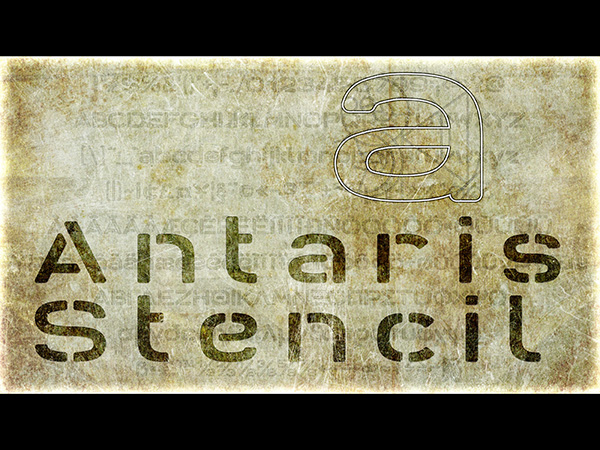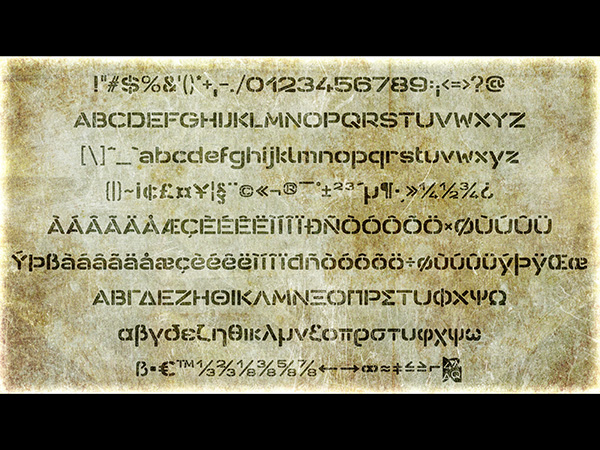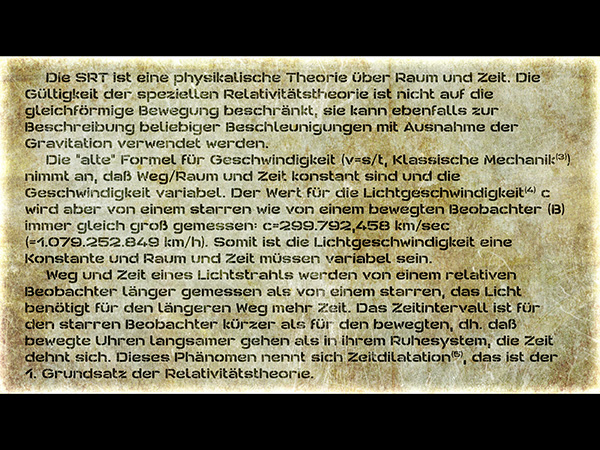
Unveiling the Antaris Stencil Font: A Strong yet Mysterious Typeface
In the realm of typography, few fonts manage to convey a sense of strength and mystery as effectively as the Antaris Stencil font. This distinctive typeface is an offshoot of the robust Antaris font, but with a unique twist that lends it an air of secrecy and ancient wisdom. The Antaris Stencil font is reminiscent of markings found on stone-age walls, military concrete structures, and wooden cargo boxes, evoking a sense of ruggedness and resilience.
The Origins and Characteristics of Antaris Stencil
The Antaris Stencil font is designed to evoke the aesthetic of stenciled letters, often used in contexts where durability and clarity are paramount. This font retains the strong, bold lines of its parent font, Antaris, but with a stenciled effect that gives it a utilitarian feel. The stenciling effect also imparts a sense of uniformity and precision, making it suitable for a wide range of applications, from industrial design to artistic projects.
One of the key features of the Antaris Stencil font is its versatility. It can be used in both digital and print media, making it an excellent choice for designers who work across multiple platforms. Whether you’re creating a logo, a poster, or a website, this font can add a touch of rugged sophistication to your design.
Design and Craft Applications
For designers and crafters, the Antaris Stencil font offers a wealth of creative possibilities. Its strong, stencil-cut appearance makes it ideal for projects that require a bold, statement-making font. Here are a few ways you might use Antaris Stencil in your designs:
- Branding and Logo Design: The font’s unique blend of ruggedness and precision makes it perfect for logos that need to stand out. It’s particularly suitable for brands that want to convey strength, reliability, and a touch of mystery.
- Poster and Flyer Design: Use Antaris Stencil to create eye-catching posters and flyers that demand attention. The font’s bold appearance ensures that your message will be clear and impactful.
- Web Design: For web designers, Antaris Stencil can add a distinctive touch to website headers, navigation menus, and other design elements. Its legibility ensures that it works well even at smaller sizes.
- Crafting and DIY Projects: Beyond digital design, the Antaris Stencil font can inspire craft projects such as stencil art, custom signs, and decorative items. Its military and stone-age echoes can add a unique theme to your crafting projects.
Tips for Using Antaris Stencil Effectively
To get the most out of the Antaris Stencil font, consider the following tips:
- Pair it with Contrasting Fonts: Combine Antaris Stencil with smoother, more fluid fonts to create visual interest and contrast in your designs.
- Experiment with Colors: While the font’s stencil effect looks great in bold colors, don’t be afraid to experiment with metallic or distressed textures to enhance its rugged appeal.
- Consider the Context: Think about the message you want to convey and choose weights and colors of the font that align with your project’s tone and theme.
In conclusion, the Antaris Stencil font is a versatile and impactful typeface that can add a unique touch to a wide range of design projects. Its blend of strength, precision, and mystery makes it an excellent choice for designers and crafters looking to make a statement. Whether you’re working on a digital project or a hands-on craft, Antaris Stencil is sure to inspire and elevate your creative endeavors.